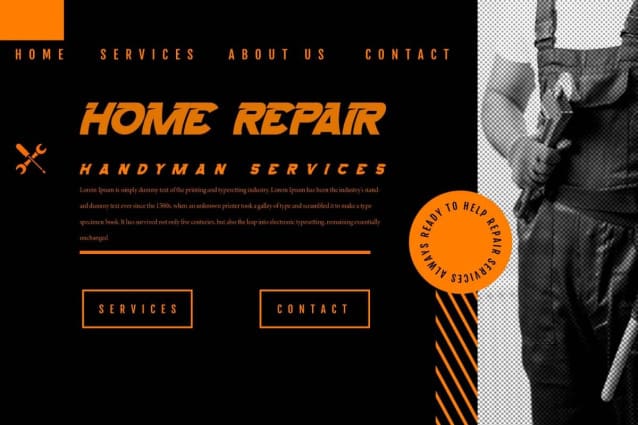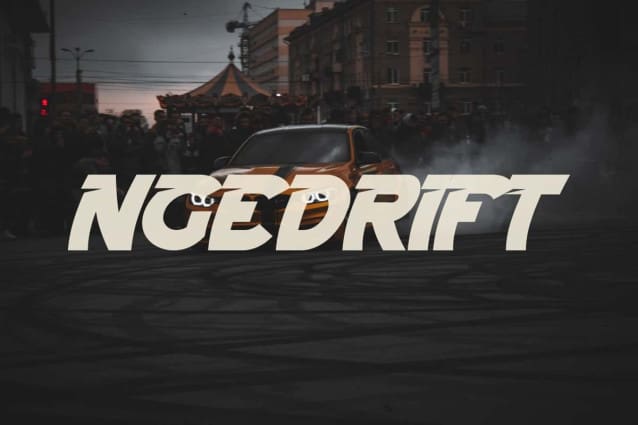
Ngedrift Display Font
Ngedrift Display Font is a stunning and modern sports display font with a racing style, its bold shapes, curved italics, and precise cuts make this font stand out clearly and make it look strong and fast. Ideal for attracting attention and easy to read both in digital and print forms such as banners, billboard, brochure, business card, ID cards, labels, logos, mockup, poster, signage, t-shirt screen printing, template design, titles, websites, more.
Ngedrift Display Font includes full set of ALL CAPS for Uppercase and Lowercase Basic Characters, Numbers, Punctuation, and Symbols. Its bold typography captures the essence of speed that evokes a sense of the energy of sports racing. Its strong and unique characteristics combined with a modern style make it suitable for apps, clothing brand, gaming, gym fitness, handyman services, menswear, racing, sports, workshop, vehicle, and more.